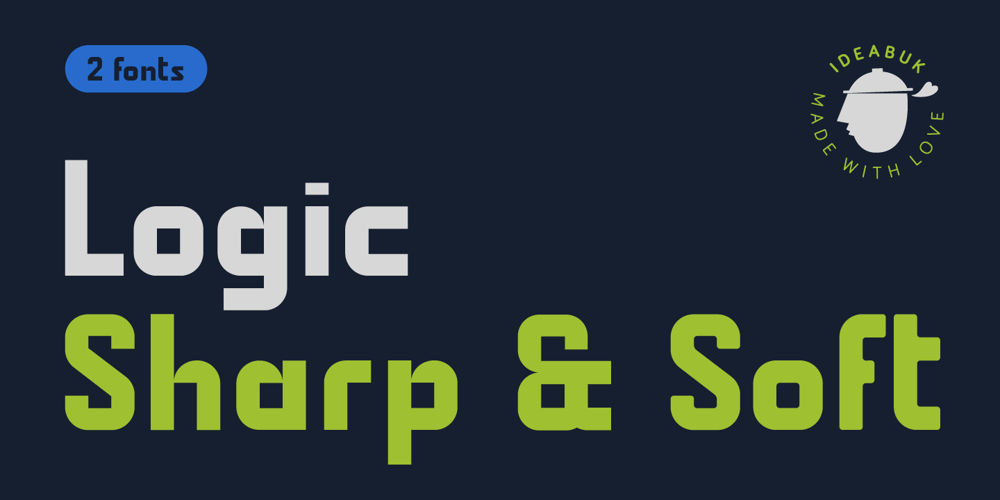
Logic Font Family was designed by Agne Matulionyte and published by Ideabuk. Logic contains 2 styles and family package options. Logic Soft and Logic Sharp are two versatile typefaces that offer a range of design options. Logic Soft with its rounded edges is ideal for projects that require a warm and friendly feel. In contrast, Logic Sharp with its sharp edges is perfect for projects that require a modern and professional look, perfect for brands and designs that need to convey strength and confidence.Try them out, and have some fun!